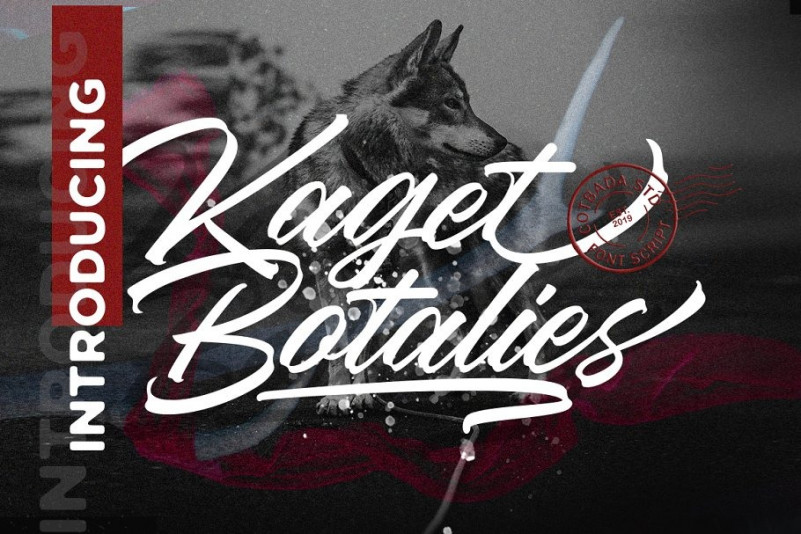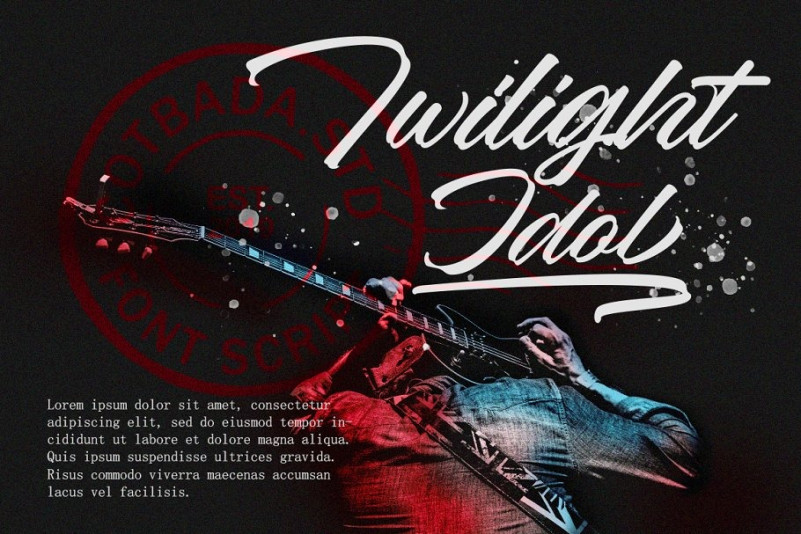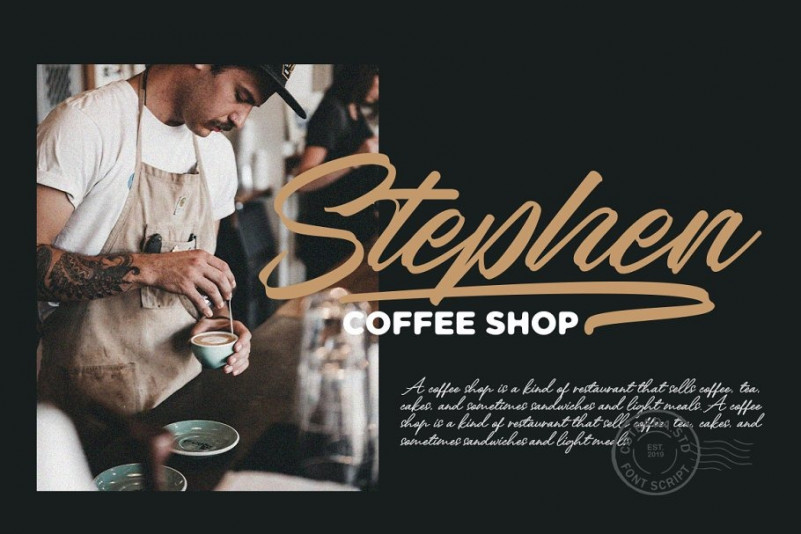
Kaget Botalies Font
Kaget Botalies Script Font is a unique, cool and modern handwritten font. It’s hand look style makes it perfect for use in all your design projects be it logos, labels, packaging design, blog headlines, Poster. etc